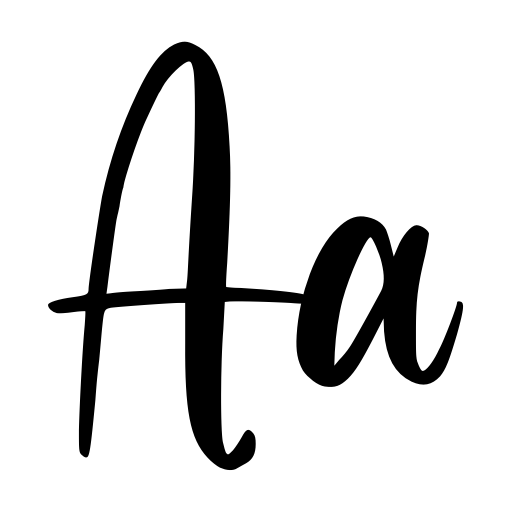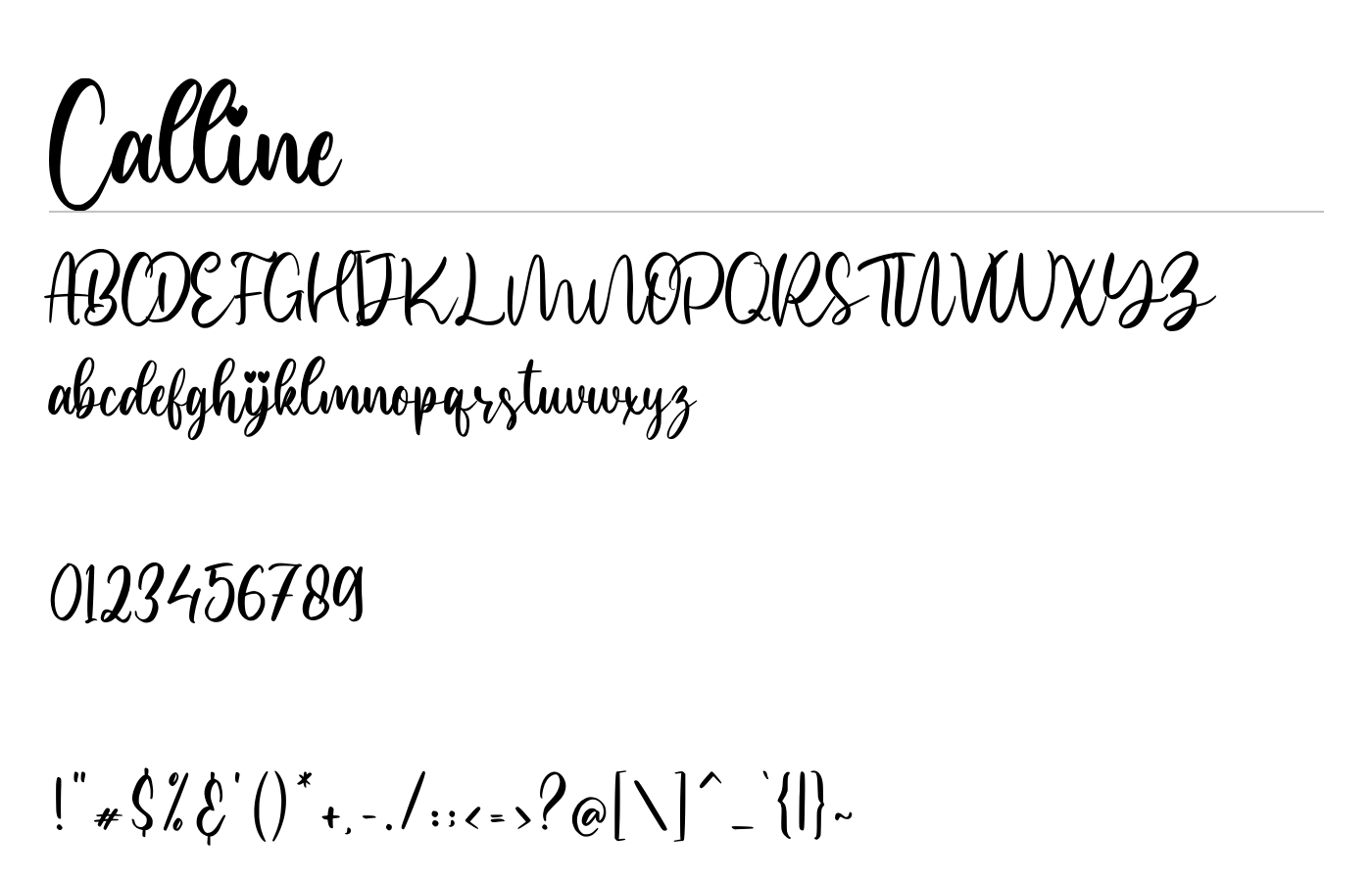
Calline is a playful and elegant script font with a handwritten feel, featuring smooth, flowing strokes and moderate contrast that adds charm without sacrificing readability. Its tall x-height and lively letterforms make it ideal for branding, invitations, and creative designs that want to express warmth and personality. This font works well in headline use or decorative contexts where a friendly, stylish touch is desired.
Calline Font
About Calline Font
| Designer | Fatmawati |